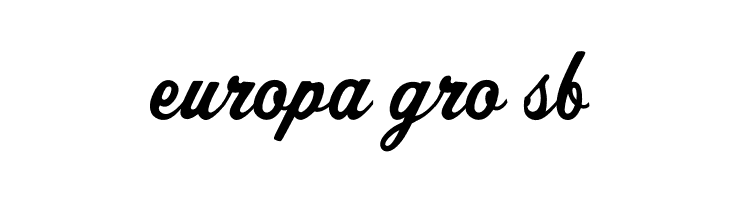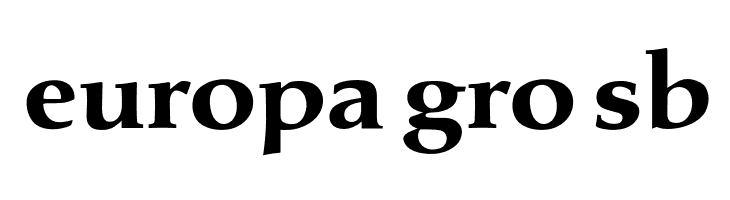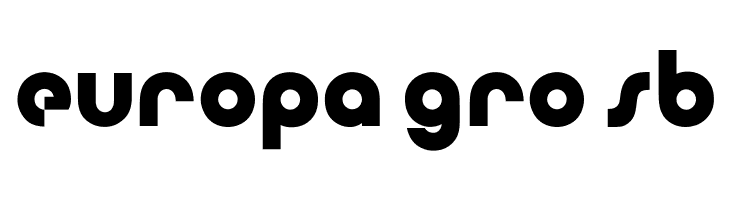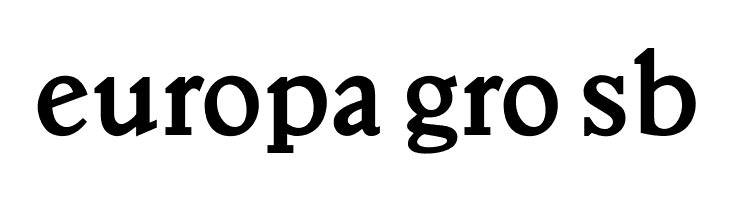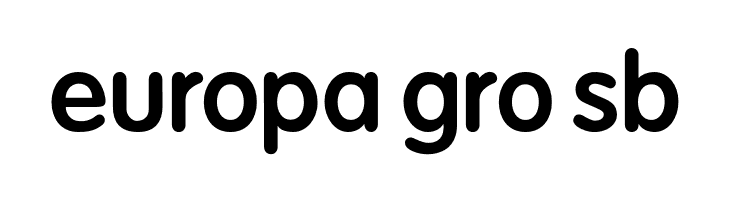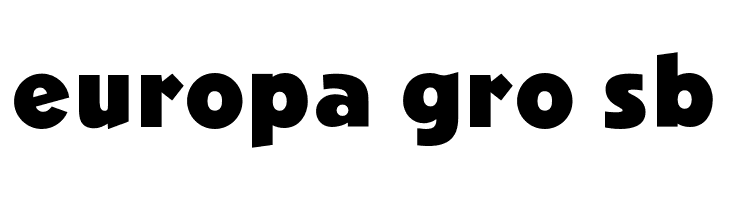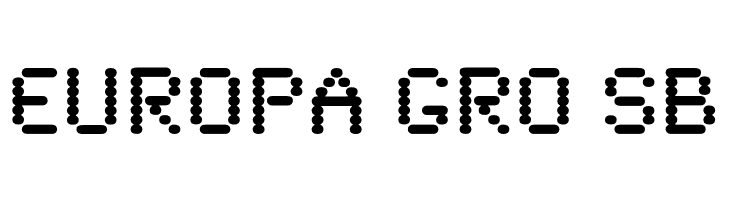
A dynamic, flowing script font with bold, slanted uppercase letters and elegant cursive lowercase forms.
A bold serif typeface with high contrast and strong, elegant letterforms.
A bold, rounded font with a modern and playful style.
A bold, modern typeface with strong, thick strokes and a clean, contemporary style.
A classic serif font with elegant, well-proportioned characters and distinct serifs.
A bold, classic serif font with strong, pronounced strokes and excellent readability.
A bold, rounded typeface with a modern and friendly appearance.
A bold, geometric font with a modern and assertive style.
A dot-matrix style font with a modern, digital appearance.
Bold, condensed sans-serif font with high contrast and modern appeal.